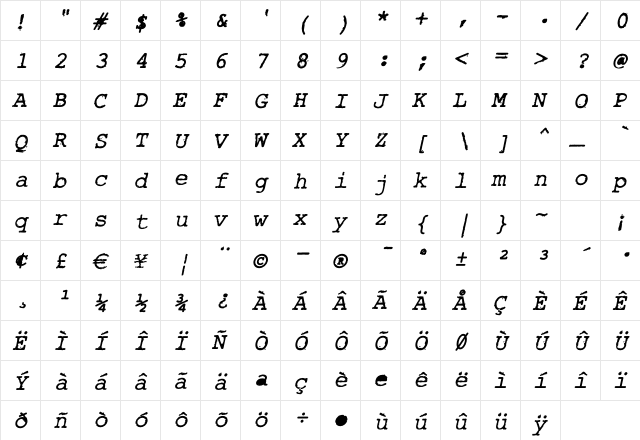
Rough_Typewriter Bold Italic
| Foundry | Jason Arthur |
| Designer | Jason Arthur |
Design Context for Rough_Typewriter Typeface
Rough_Typewriter trades polish for personality, using distressed and eroded forms to bring grit and attitude to creative work. Its italic angle brings a sense of urgency and motion to the letterforms.
Suited to punk-influenced zines, underground music branding, streetwear, and raw, anti-corporate design.
Pro Tip: Pair Rough_Typewriter with intentionally raw or lo-fi design elements. Fighting against it with overly polished surroundings will undermine its personality.